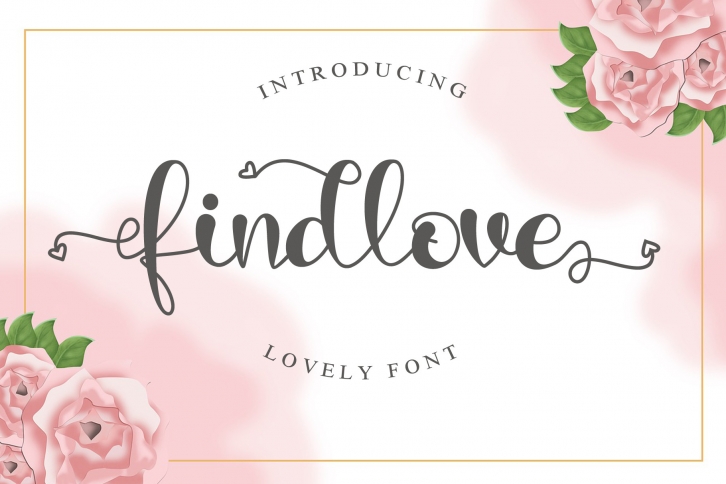
Findlove is a script writing style that looks very attractive and stylish. Findlove can be applied to wedding invitations, logos, business cards, branding, apparel and others. This font is PUA encoded which means you can access all of the glyphs and swashes with ease!